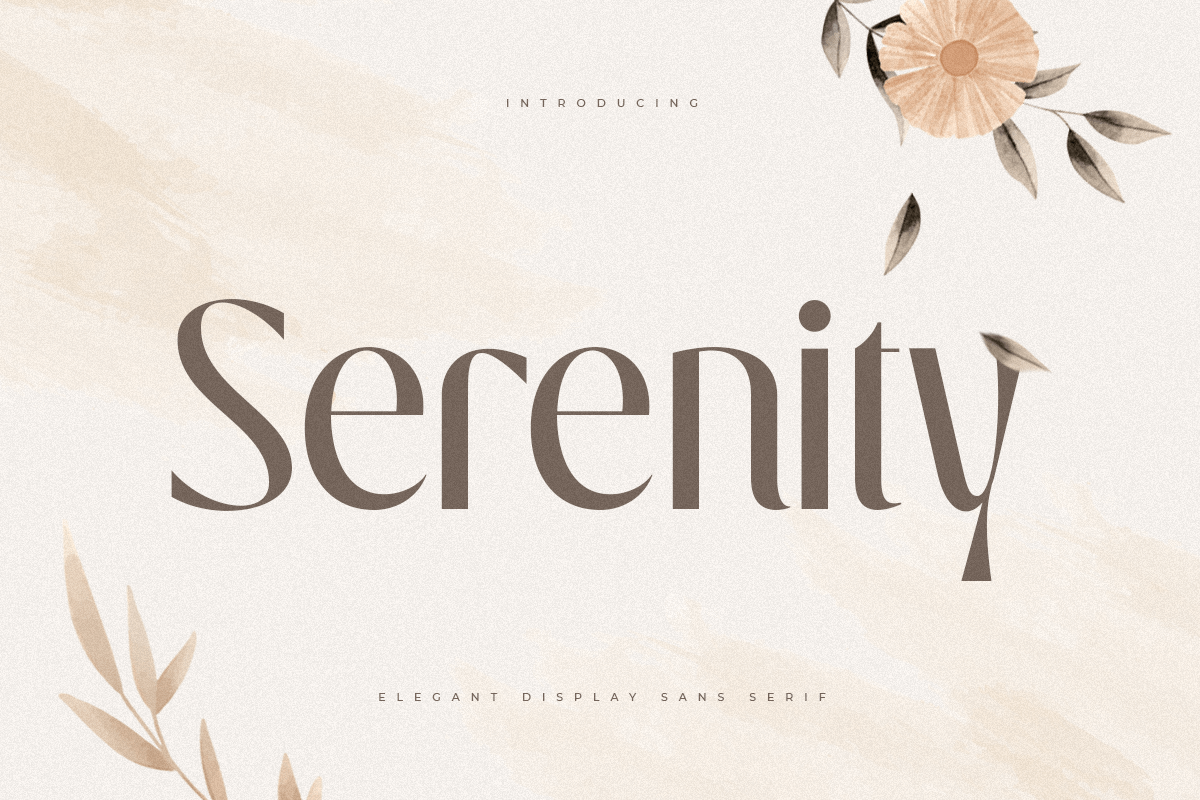
Serenity
-Luxury Elegant Beauty Font
Serenity
A Luxury Elegant Beauty font that we created special for elegant branding needs, with unique shape will be ready to add value of your brand. It so nice to leverage designer or product owner that need solutions to make their design look more stylish and modern. And specially for Serenity font, We prepared any characters to help you create unlimited variations for your creative needs.